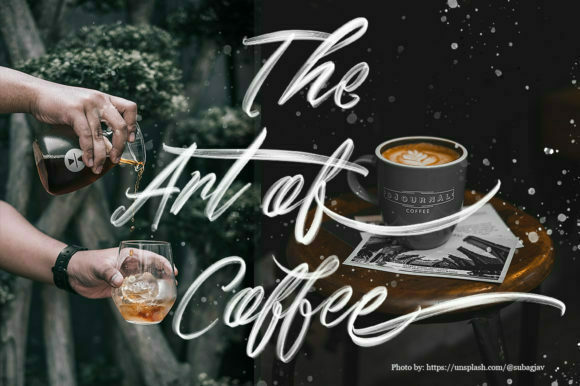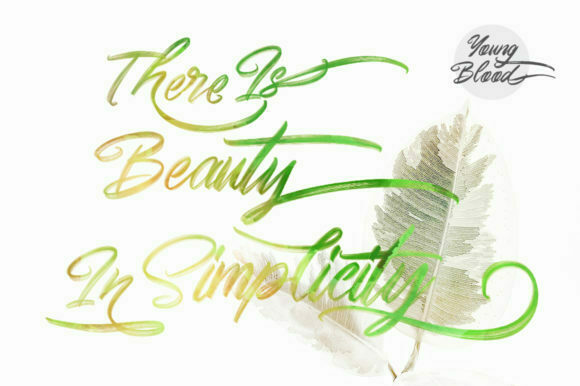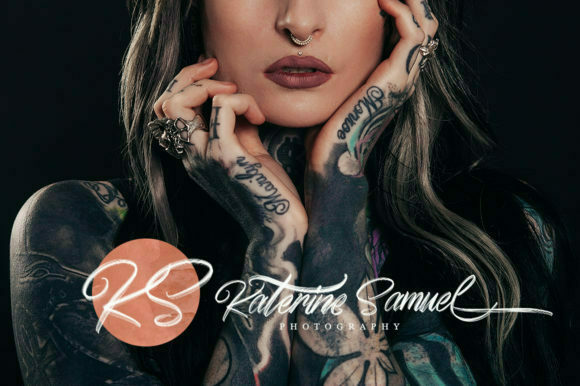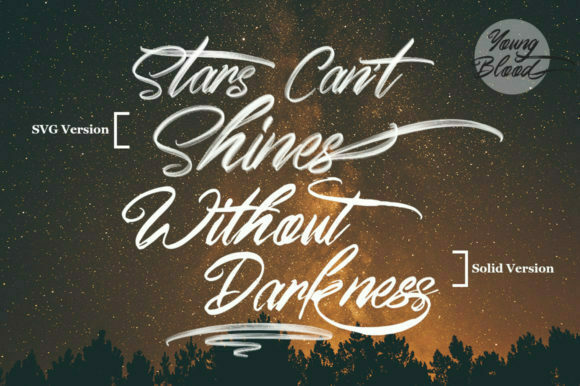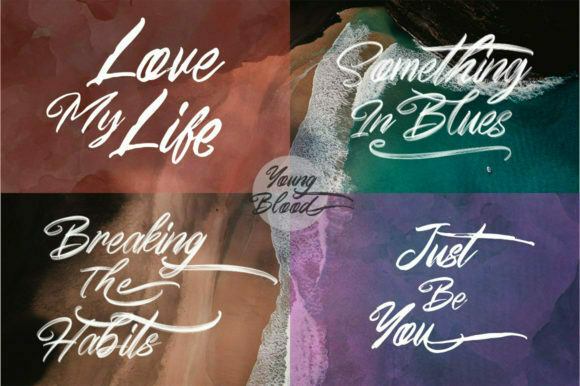
Young Blood Font
About Young Blood Font
Introducing “The Young Blood,” a handwritten script font with a messy grunge style that adds a unique and edgy touch to your designs. This font comes with a solid version and amazing SVG versions, providing versatility and creativity to your projects.
“The Young Blood” is suitable for a wide range of design applications. Its expressive and organic letterforms make it perfect for element designs, adding a touch of rawness and personality to your creations. Whether you’re designing wedding stationery, event invitations, t-shirts, logos, badges, stickers, or other graphic elements, this font will make a statement and stand out.
The solid version of “The Young Blood” offers a clean and legible option for projects that require clarity and readability. Its messy grunge style adds texture and character without compromising on legibility. Use this version for body text, captions, or any other text element that needs to be easily understood.
The SVG versions of “The Young Blood” provide a more dynamic and textured appearance, retaining the original brush strokes and details of the handwritten script. These versions add an extra layer of depth and visual interest to your designs. They are compatible with programs such as Photoshop, Illustrator, Silhouette, and Inkscape, allowing you to fully utilize their color and texture capabilities.
Whether you’re aiming for a rustic, urban, or rebellious look, “The Young Blood” font is a great choice. Its messy grunge style exudes a sense of youthfulness, creativity, and nonconformity. It allows you to break free from traditional design conventions and embrace a more raw and authentic aesthetic.
Unleash your creativity with “The Young Blood” font and let its messy grunge style bring an edgy and unique look to your designs. Whether you’re creating element designs, wedding stationery, event materials, or other graphic projects, this font will add a touch of rawness and personality that sets your work apart. Embrace the creative possibilities of “The Young Blood” and let it breathe life into your designs.